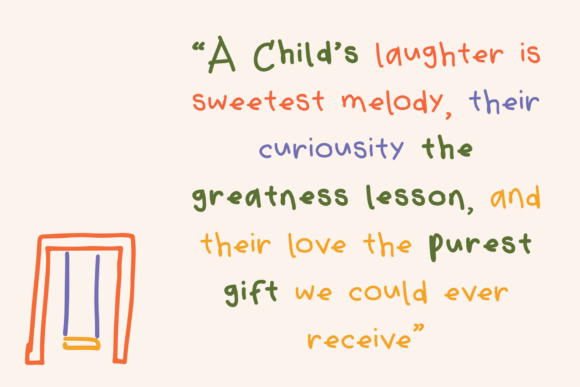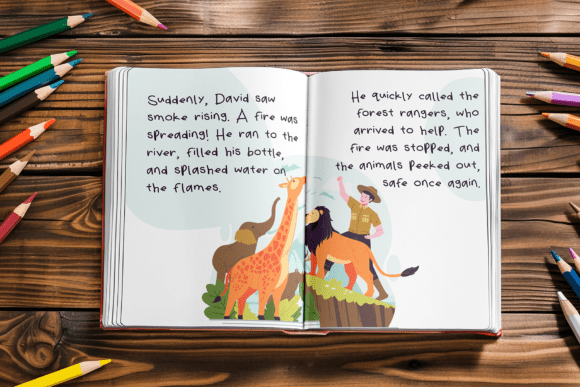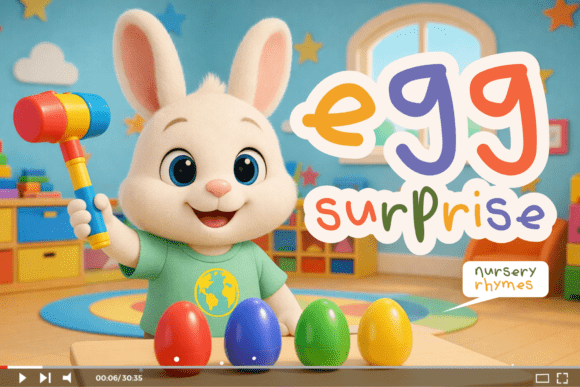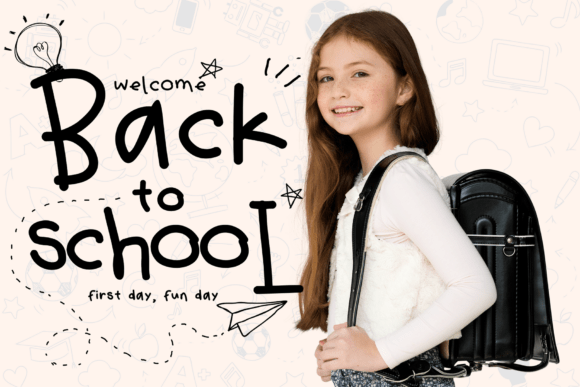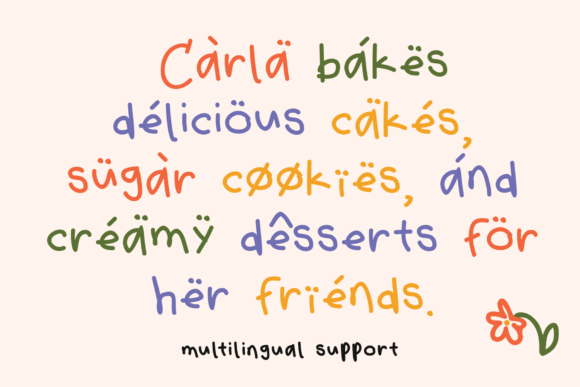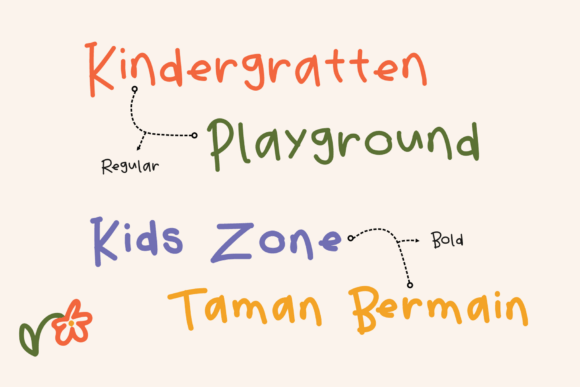
Leslie Crayon Font – Free Download
Introduction to Leslie Crayon Font
Color outside the lines with Leslie Crayon, a nostalgic display typeface that captures a “youthful-and-yearning” soul.
This font features charming, hand-drawn letterforms characterized by the rhythmic, waxy texture of a real crayon stroke and soft, uneven terminals that evoke the pure joy of childhood creativity With its light structural weight and innocent personality, Leslie Crayon is the premier choice for independent toy branding, children’s book illustrations, nursery decor prints, and high-impact “playful-and-primary” social media headers.
Key Features of Leslie Crayon Font
Why Choose Leslie Crayon Font?
Leslie Crayon Font offers exceptional quality and versatility, making it a valuable addition to your design toolkit. Whether you’re creating for personal projects or commercial use, Leslie Crayon Font delivers professional results.